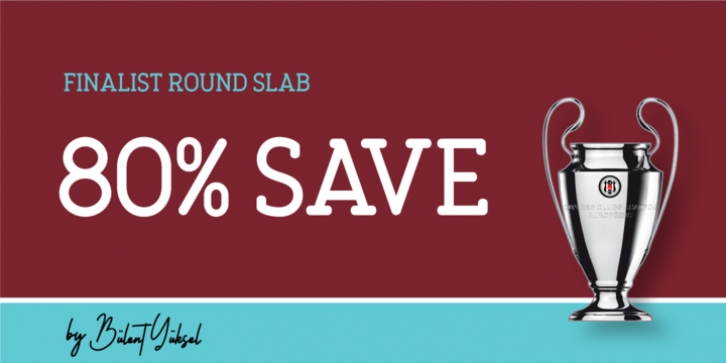
Finalist Round Slab was designed by Bülent Yüksel and published by Bülent Yüksel. Finalist Round Slab contains 10 styles and family package options.
Finalist Round Slab project started in April of 2014 and I am happy to announce the first family - Finalist Round Slab - is now ready for release. This family includes 10 weights - five uprights and five italics.
The font was intended primarily to have a stronger body. It has a simple geometrical surface. This font has a strong personality, that makes it perfect for use in headline sizes but means it also works gracefully within text blocks. Finalists Round Slab is carefully crafted and a unique slab serif. Use for websites, print, motion graphics, logo design, packaging design, t-shirts and more.